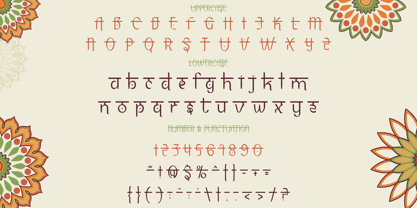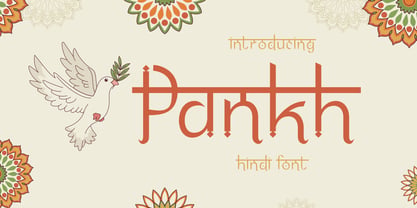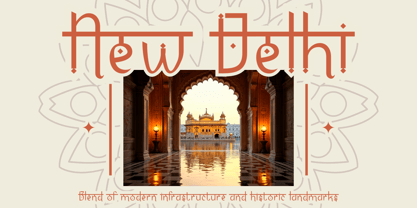
Pankh
by Shanaf
The Pankh Font Family was designed by Yesie Erma Yunita and published by Shanaf. Pankh contains 1 styles. More about this family
Pankh Hindi Font is a culturally rich typeface inspired by the beauty of Indian scripts and traditional Sanskrit forms. The font combines elegant curves, extended horizontal strokes, and subtle diamond-shaped details, creating a design that blends authenticity with modern usability. Each character reflects a visual echo of Hindi calligraphy while maintaining legibility for digital and print use. Pankh Hindi Font carries a timeless aesthetic, making it perfect for branding, packaging, invitations, cultural posters, magazine titles, or even cinematic projects. With its handcrafted influence and decorative details, the font instantly brings an air of heritage, storytelling, and authenticity to your designs.
Beyond its cultural roots, this font offers versatility across modern creative applications. It adapts seamlessly to logos, book covers, editorial layouts, or event promotions. The high-contrast strokes and extended character design ensure bold readability, while the unique accents provide a distinctive touch compared to common display fonts. Whether you are designing for a festival poster, a heritage brand, or an elegant wedding invitation, Pankh Hindi Font offers a perfect balance between tradition and contemporary aesthetics. Use it to express depth, identity, and cultural richness in every creative project.
Designers: Yesie Erma Yunita
Foundry: Shanaf